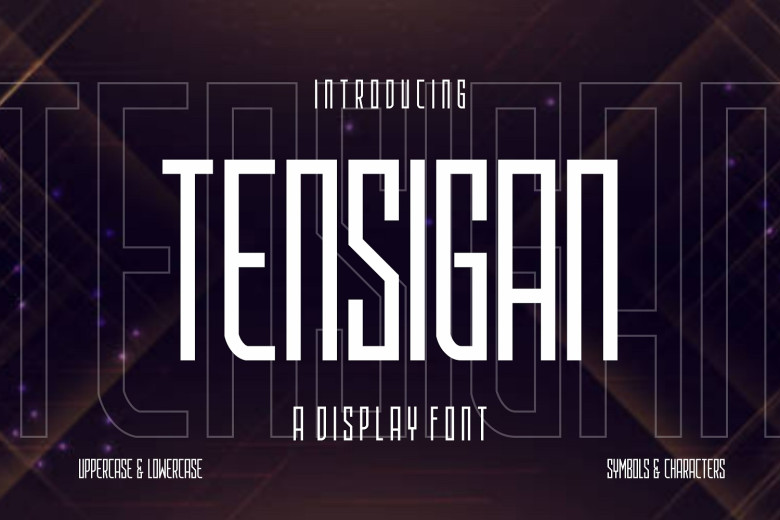
Tensigan Font
Tensigan font is an exceptionally distinctive display font. Crafted with great care to be an irresistibly pleasing font, Tensigan will take all of your creative concepts and bring them to the next level!
Tensigan Display Font